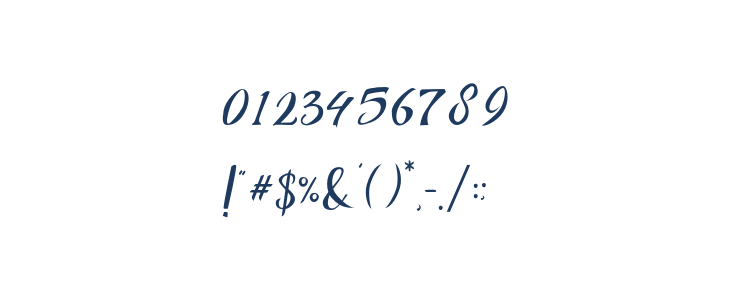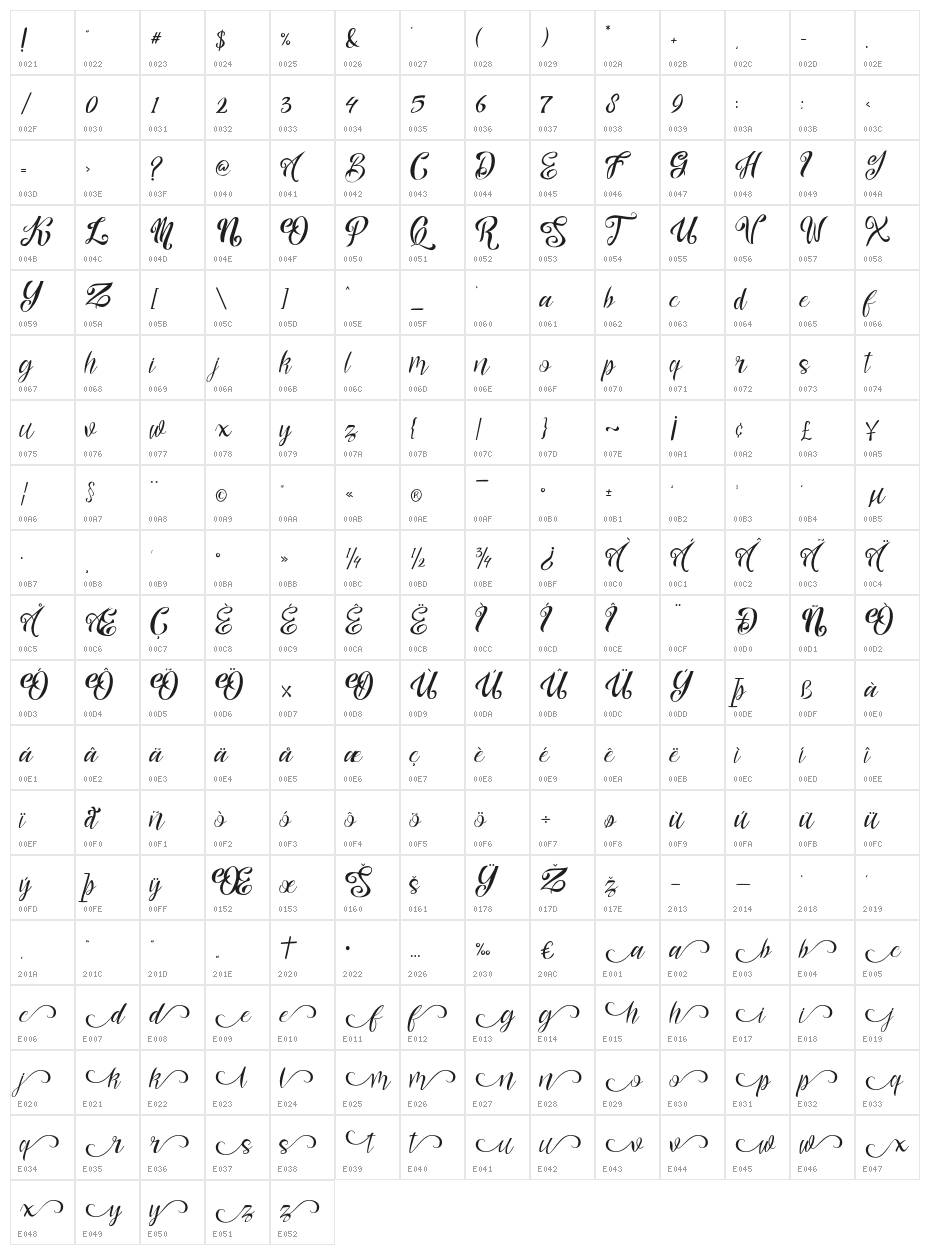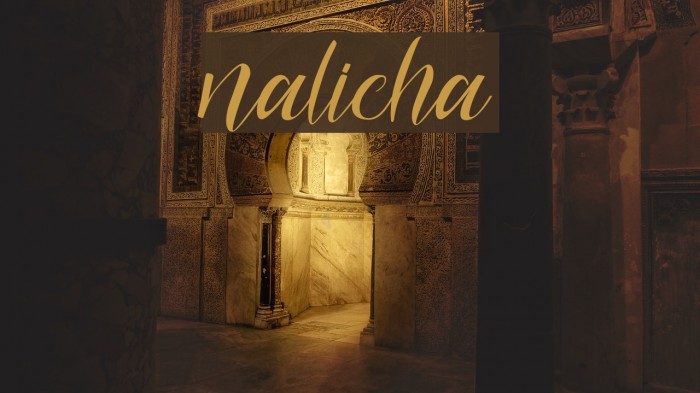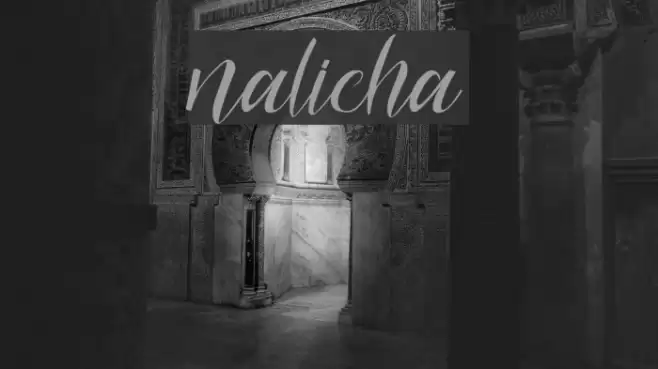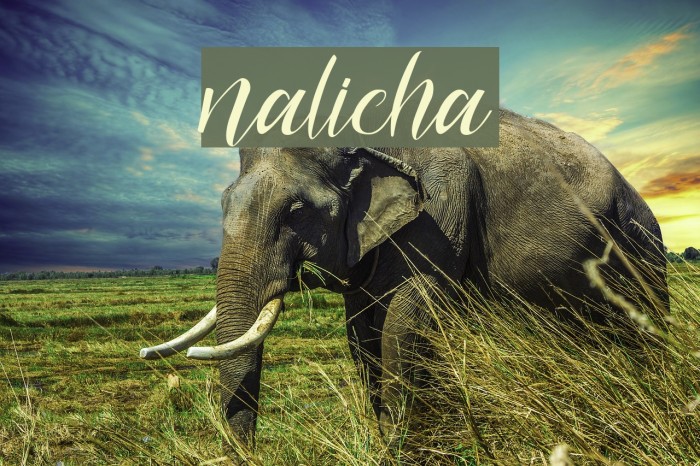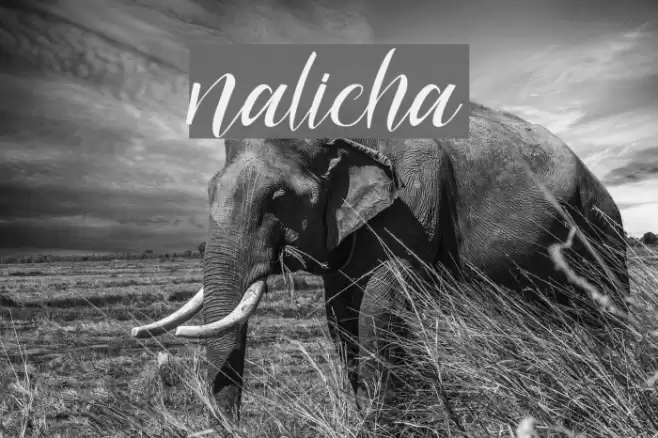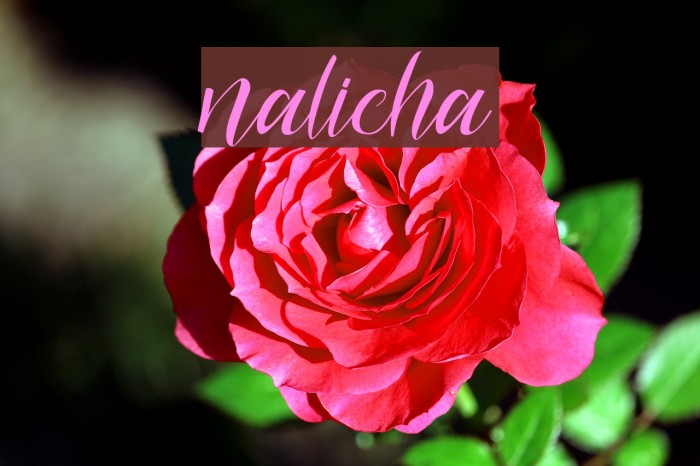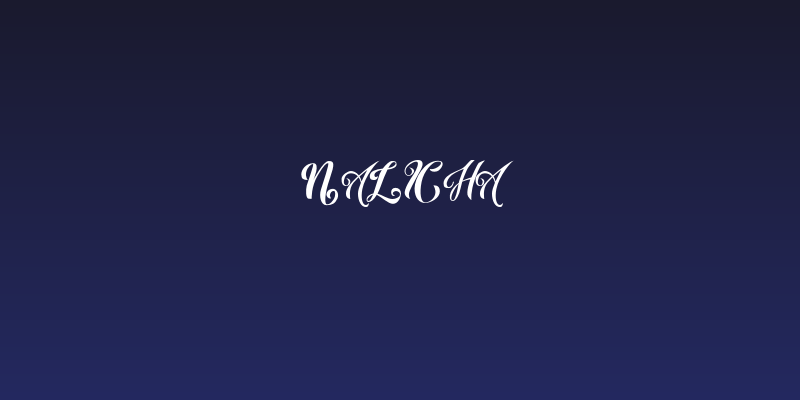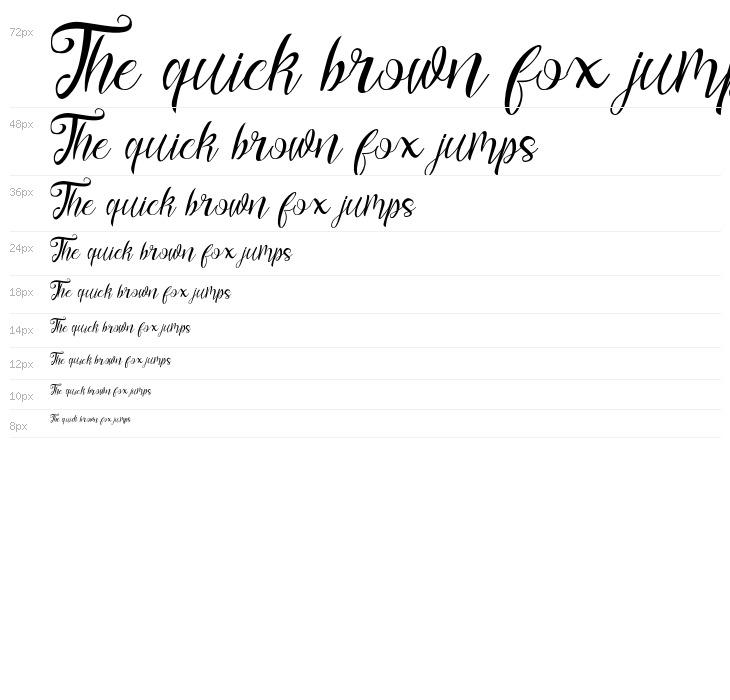
nalicha Font
nalicha Description
This font features an elegant and flowing script style, characterized by its smooth, cursive strokes and graceful curves. The uppercase letters are particularly ornate, with intricate loops and swirls that add a touch of sophistication. The lowercase letters maintain a consistent flow, enhancing readability while preserving the decorative nature of the script. The font's design is reminiscent of traditional calligraphy, making it suitable for formal and elegant applications. Its fluidity and artistic flair make it ideal for projects that require a personal touch or a sense of luxury.
| Proposed Projects | Wedding invitations, luxury branding, greeting cards, elegant packaging, and personal stationery. |